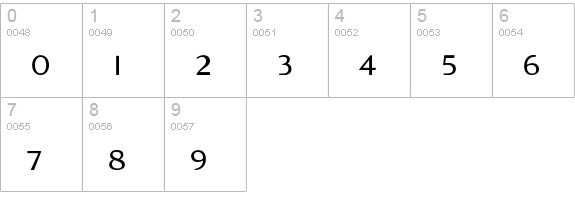
EideticModern Font Details
EideticModern is a sleek and sophisticated font that exudes elegance and modernity. With its clean lines and contemporary aesthetic, this font is perfect for adding a touch of style to any design project. Whether you're creating a sleek logo, designing a professional website, or crafting eye-catching marketing materials, EideticModern is sure to make a lasting impression. What sets EideticModern apart is not only its stunning design, but also the fact that it is available for free. That's right, you can download this exquisite font at no cost from FontsMarket.com. So why wait? Enhance your creations with the beauty and elegance of EideticModern today.